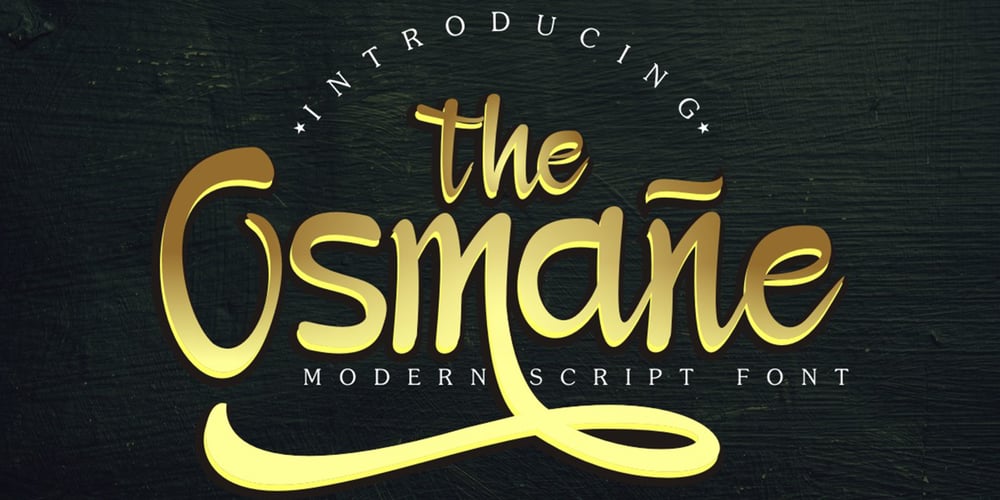
Osmane Font Family was designed by Irfan Mahmudin and published by Skiiller Studio. Osmane contains 1 styles and family package options. Osmane is a beautiful script type script designed with a neat concept, , even businesses, companies, clothing, and much moreWhat’s include:Stylistic alternate for lowercasePUA Encoded Characters – Fully accessible without additional design software.Basic Latin Language SupportHow to access alternate glyphs? you can see it on this link ( http://goo.gl/1vy2fv )